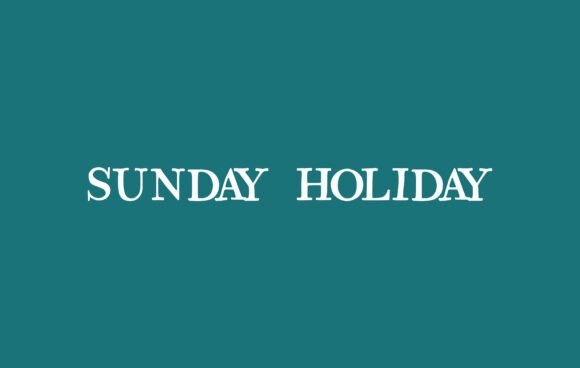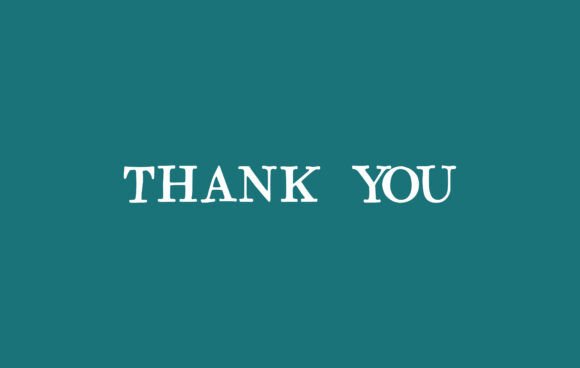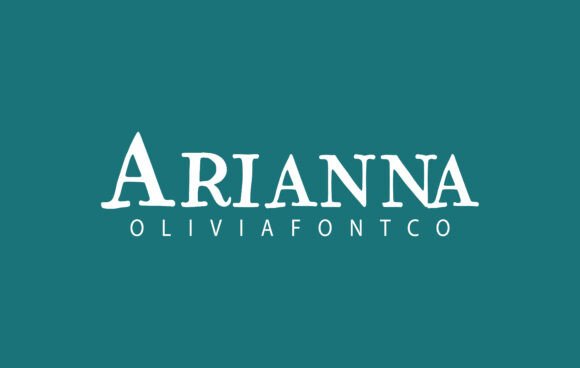
The Arianna Font: A Romantic Touch for Your Creative Projects
I’ll never forget the moment I stumbled upon the Arianna font while working on a wedding invitation project for a dear friend. I had been searching for the perfect font for weeks, and just when I thought I’d never find it, I came across this beautiful, handwritten font that stole my heart. The romantic touch and elegant flow of the letters immediately caught my attention, and I knew I had found the one. In this article, I’ll share my experience with the Arianna font, its features, and how to make the most of it in your creative projects.
As a designer, I’m always on the lookout for fonts that can elevate my projects and make them stand out. The Arianna font has become a true favorite of mine, and here’s why:
• ✨ Legibility: The Arianna font is incredibly legible, making it perfect for both title and body text.
• ✅ Romantic touch: The font’s handwritten style adds a touch of elegance and sophistication to any design.
• 💫 Versatility: The Arianna font can be used for a wide range of projects, from magazine headlines to social media graphics, branding, wedding invitations, and more.
While the Arianna font is amazing, it’s not perfect. Here are a few quirks to keep in mind:
• 🤔 Limited use in small sizes: While the font is legible, it may not be the best choice for very small text sizes, as some details may get lost.
• ⚠️ Occasional kerning issues: As with any font, you may encounter some kerning issues, especially when using the font in combination with other fonts.
The Story Behind the Arianna Font
The Arianna font was designed by a talented type designer who wanted to create a font that would capture the essence of handwritten elegance. Inspired by classic calligraphy and modern script fonts, the designer poured their heart and soul into creating a font that would be both beautiful and functional. The result is a font that’s perfect for creative projects that require a touch of romance and sophistication.
Font Name Arianna Font
Author OliviaFontCo
What is the Arianna font best used for? The Arianna font is perfect for creative projects that require a romantic touch, such as wedding invitations, social media graphics, branding, and magazine headlines.
Is the Arianna font legible? Yes, the Arianna font is incredibly legible, making it perfect for both title and body text.